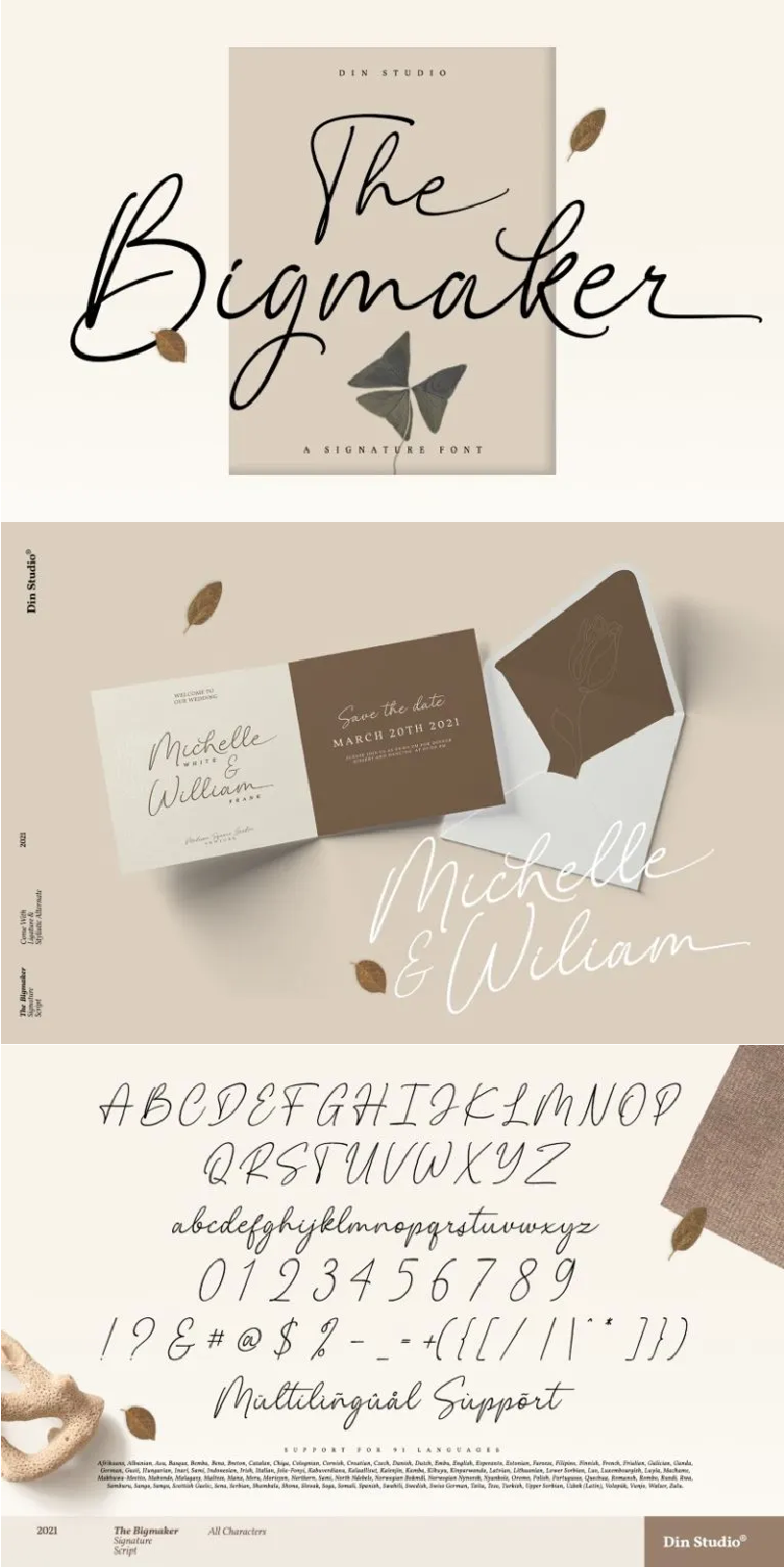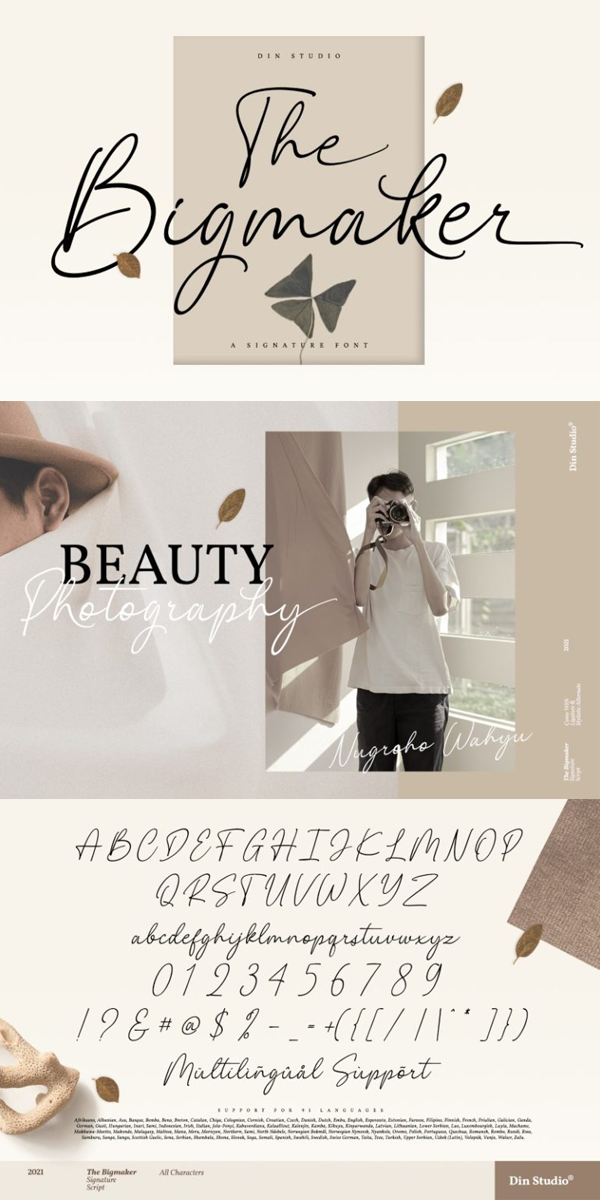
The Bigmaker Font
About The Bigmaker
The Bigmaker – A Signature Font
This handmade font typeface with an elegant, graceful, yet simplistic cursive style. It’s a must have font for your classy website, for your social media branding, Pinterest banners, printed invitations, and more! Inspire and give love to your audience, clients, or guests with this stylish signature font. See the previews above to get some inspiration on how you can use them.